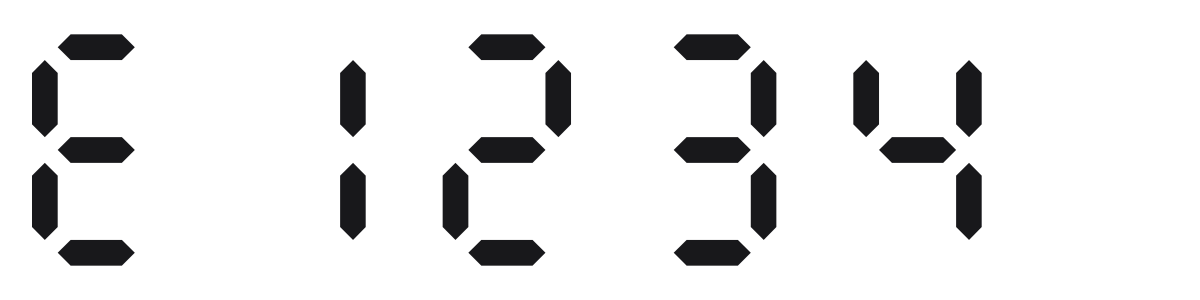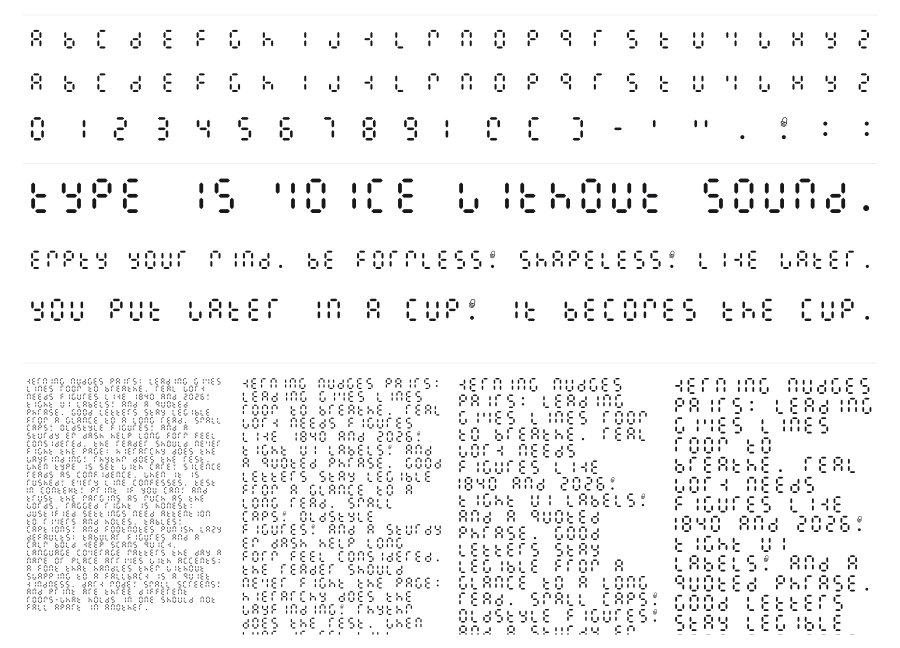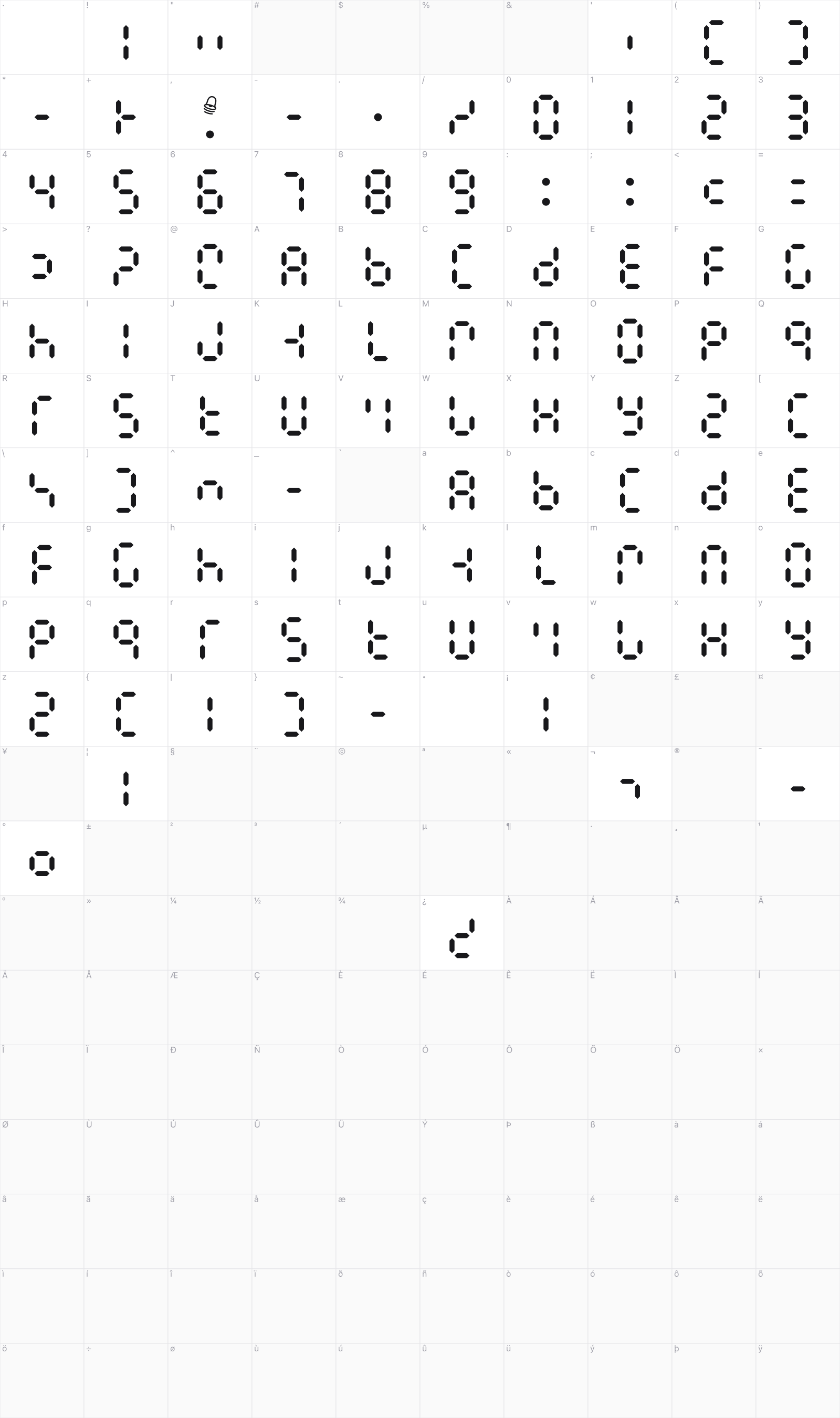
E1234
E1234 is a seven-segment LCD display font that faithfully recreates the look of digital clocks and calculator screens. Built from short dashed strokes arranged in the classic segmented pattern, it carries an unmistakable retro-digital character. The light weight and precise geometry keep it clean at headline sizes.